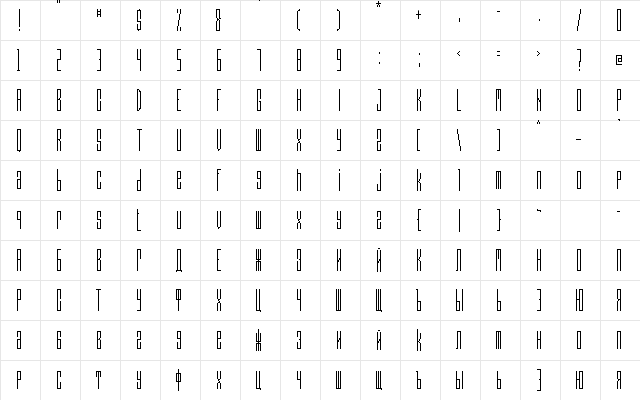
ZI_PIXEL_HIGH_24_CYR Regular
Designer: Squaresville - eng. & Dubina Nikolay (D-Studio /Moscow/) - rus.
Design Context for ZI_PIXEL_HIGH_24_CYR
ZI_PIXEL_HIGH_24_CYR is rooted in pixel-grid construction, making it a natural fit for game UI, retro computing aesthetics, and digital nostalgia projects.
Pro Tip: Use ZI_PIXEL_HIGH_24_CYR at sizes that align with its pixel grid for the sharpest rendering - scaling to non-integer multiples can introduce unwanted blur.